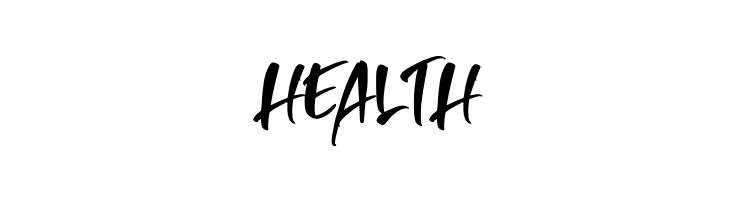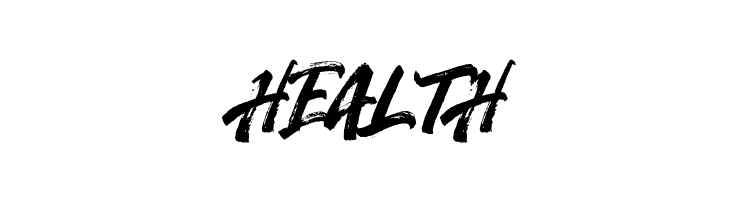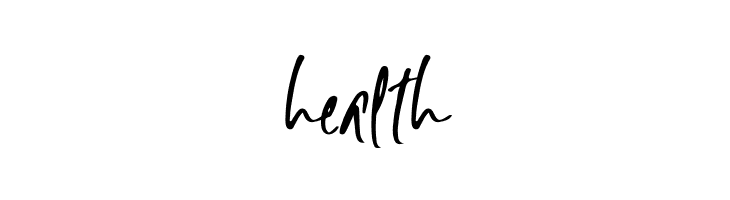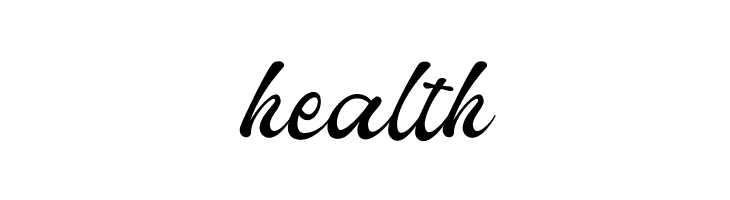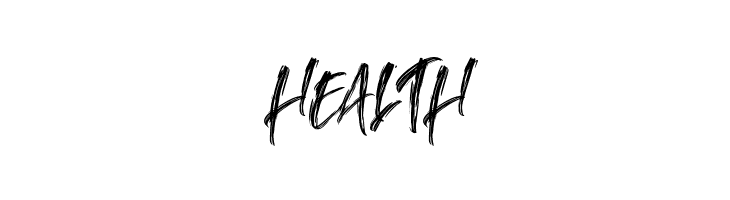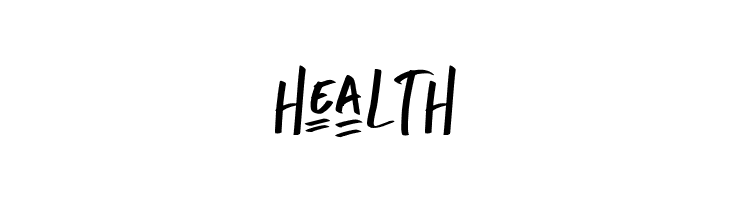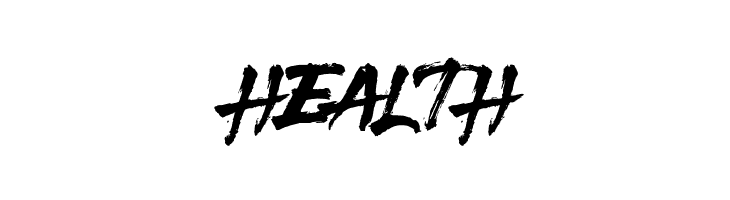
A bold, expressive brush-style font with dynamic and fluid strokes.
A bold, brush-style font with dynamic and expressive strokes.
A lively and energetic handwritten script font with bold, cursive strokes.
A dynamic, handwritten-style font with bold, fluid strokes.
A dynamic, expressive handwritten font with fluid strokes.
A classic, elegant script font with flowing, interconnected letters.
A dynamic brush-style font with bold, sweeping strokes and a handcrafted feel.
A bold, expressive handwritten font with dynamic strokes.
A bold, brush-style font with dynamic and artistic strokes.
A modern, handwritten font with elegant, fluid strokes and dynamic character design.